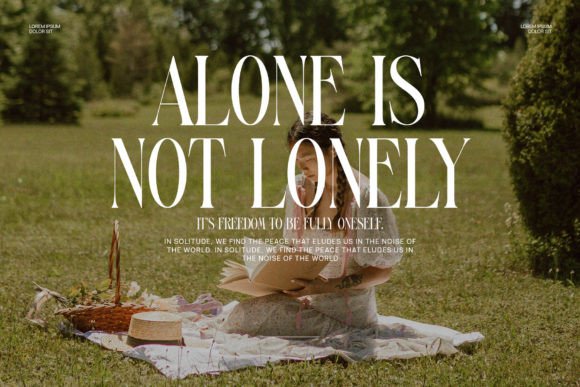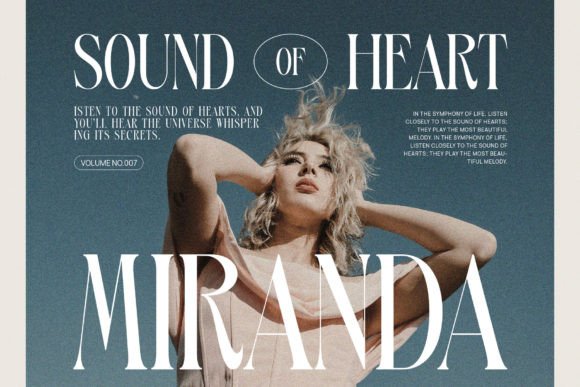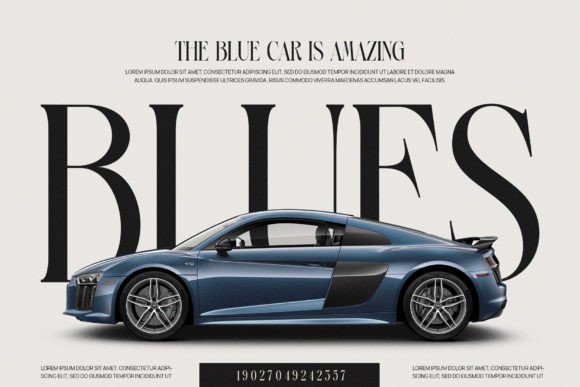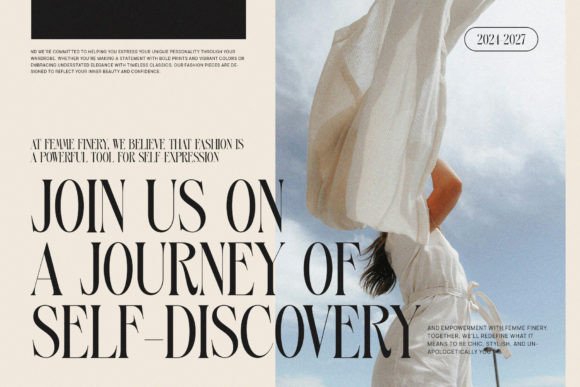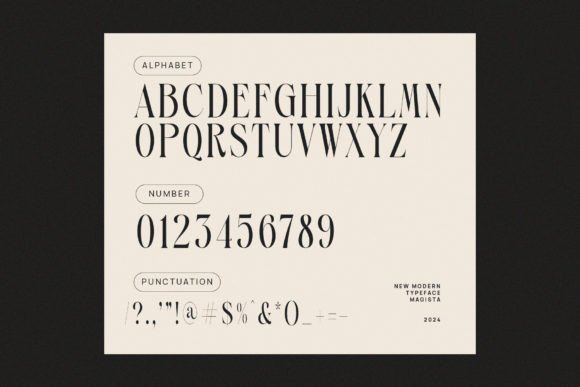
Introduction to Magista Font
Imagine you’re browsing through a high-end fashion magazine, and you come across a beautifully crafted logo that immediately catches your eye. The font is elegant, sophisticated, and screams luxury. That’s the kind of impact you can create with the Magista Font, a stunning serif font designed to elevate your designs to the next level.
For designers, having access to high-quality design resources like the Magista Font is invaluable. It’s a game-changer for creative projects that require a touch of elegance and sophistication. Whether you’re working on a branding project, creating social media posts, or designing labels and product packaging, this font is sure to impress. And the best part? It’s available for free download, making it an accessible design resource for designers of all levels.
Key Features of Magista Font
- High-quality, modern design suitable for creative projects, including graphic design, digital art, and more.
- Includes a range of characters and glyphs, including international characters and symbols, to support diverse creative projects.
- Designed with a focus on legibility and readability, making it an ideal choice for body text and headings in various design contexts.
Honest Review: Magista Font
As a designer, I’m always on the lookout for high-quality design resources to elevate my creative projects. Recently, I stumbled upon the Magista Font, and I must say, it’s been a game-changer.
- ✨ Unique Design: The Magista Font boasts a sleek, modern design that’s perfect for any project requiring a touch of sophistication.
- ✨ High-Quality: The font’s high quality is evident in its crisp, clean lines and precise typography.
- ✨ Transparent Background: The font’s transparent background makes it easy to layer with other design elements.
However, I do have a few minor quibbles. ⚠️ Limited Character Set: The Magista Font only includes a limited character set, which might not be suitable for projects requiring extensive language support.
Overall, I’m thoroughly impressed with the Magista Font. Its unique design, high quality, and free download make it an excellent addition to any designer’s toolkit. While it may have some limitations, I highly recommend it for any creative project requiring a touch of sophistication.
Magista Font
Tips for Getting the Most Out of Magista Font
To achieve a seamless design, pair the Magista Font with a transparent background. This will allow the font to take center stage and add depth to your creative project. Experiment with different font sizes and styles to create a unique look.
The Magista Font is ideal for designing logos, brochures, and social media graphics. Its high-quality design makes it perfect for any creative project that requires a professional touch. With a free download available, you can start using this font today and take your design to the next level.